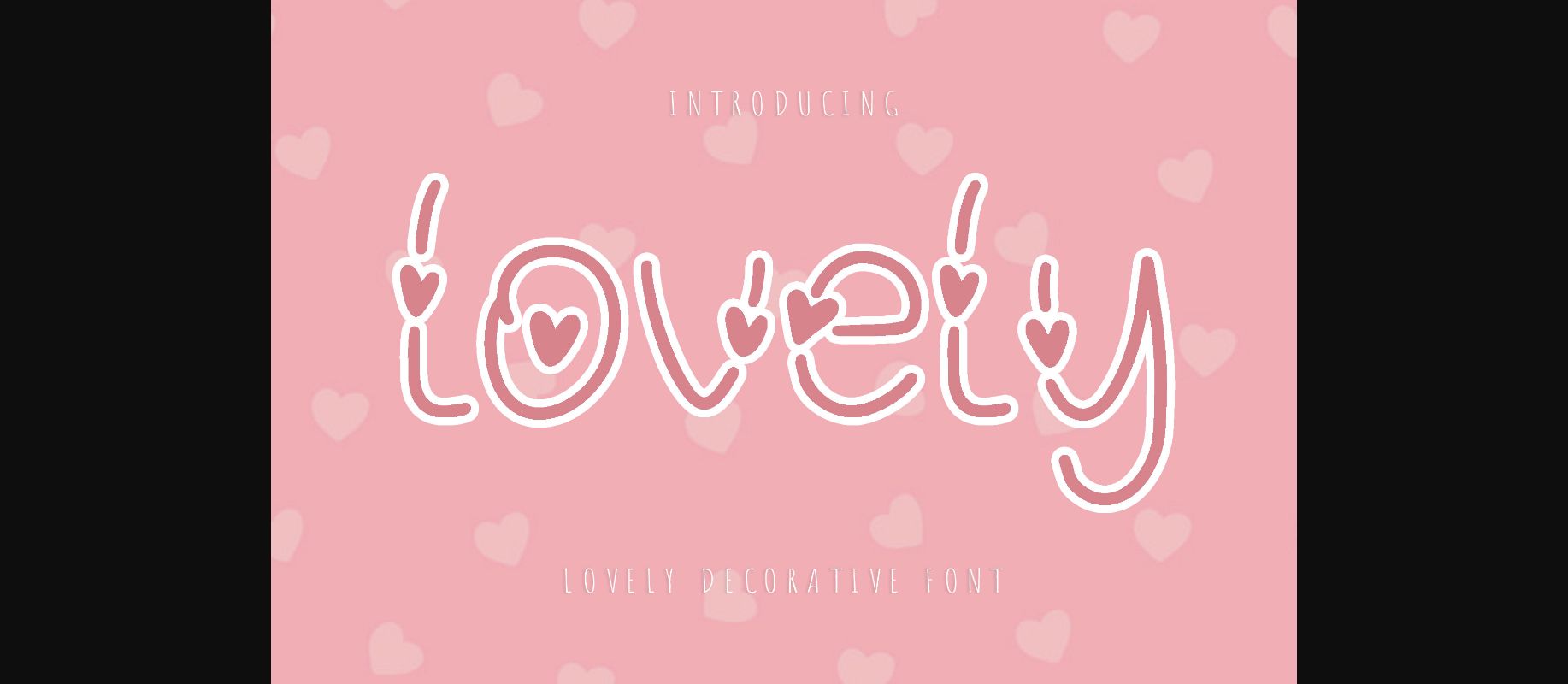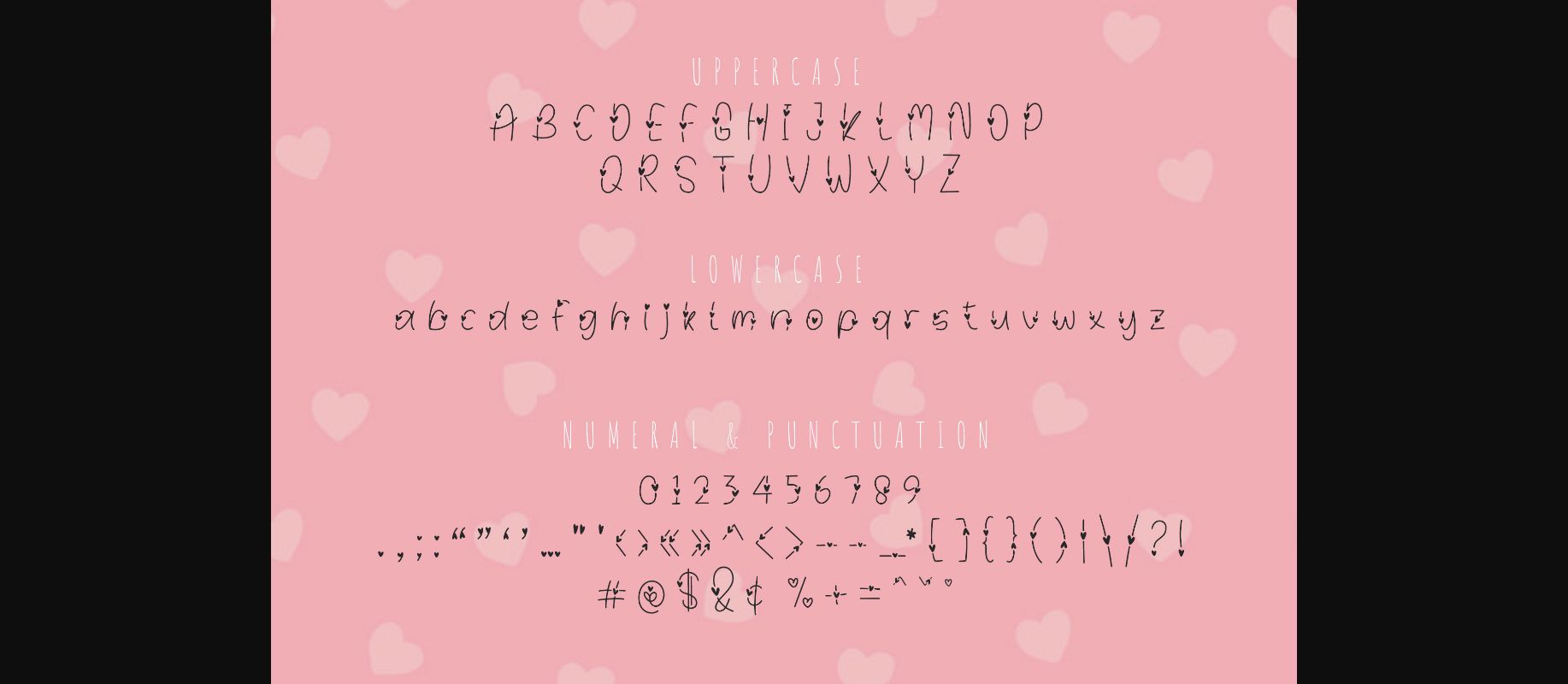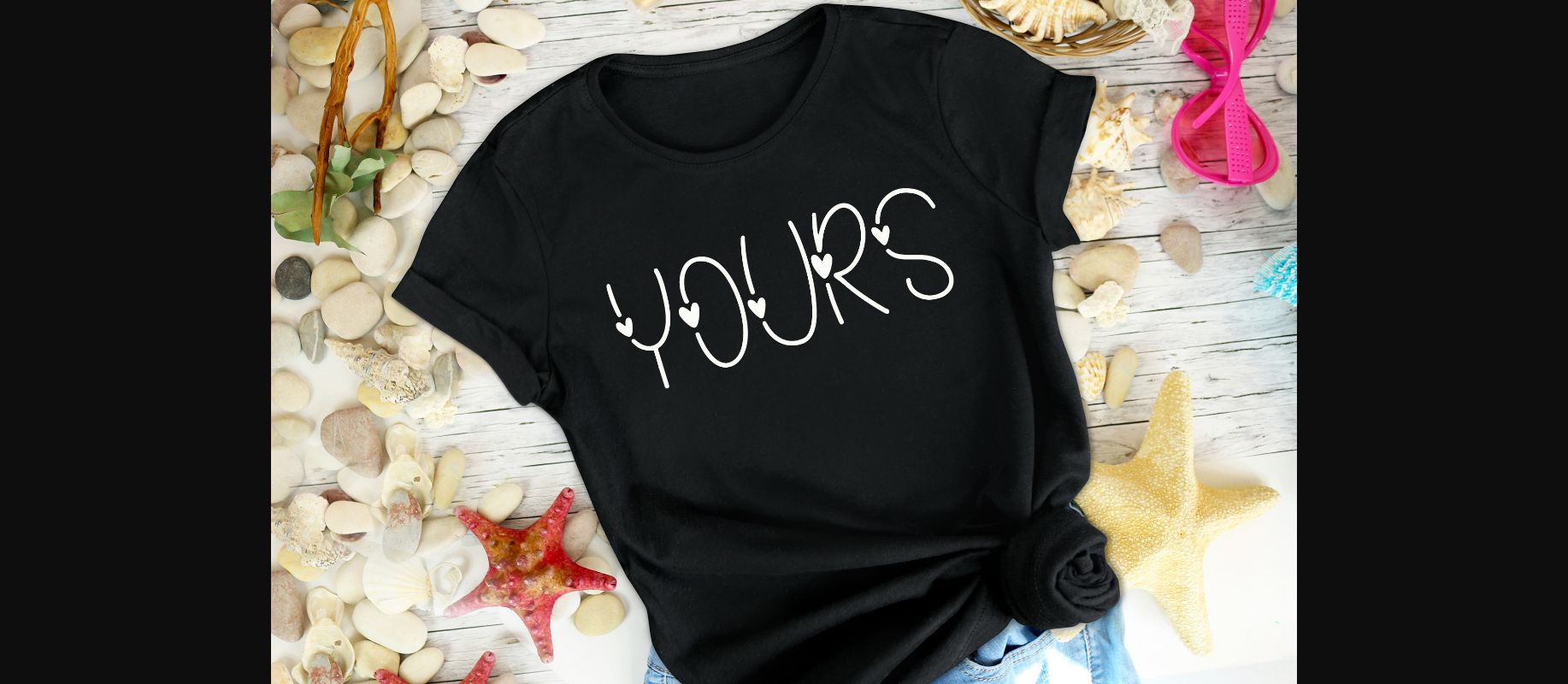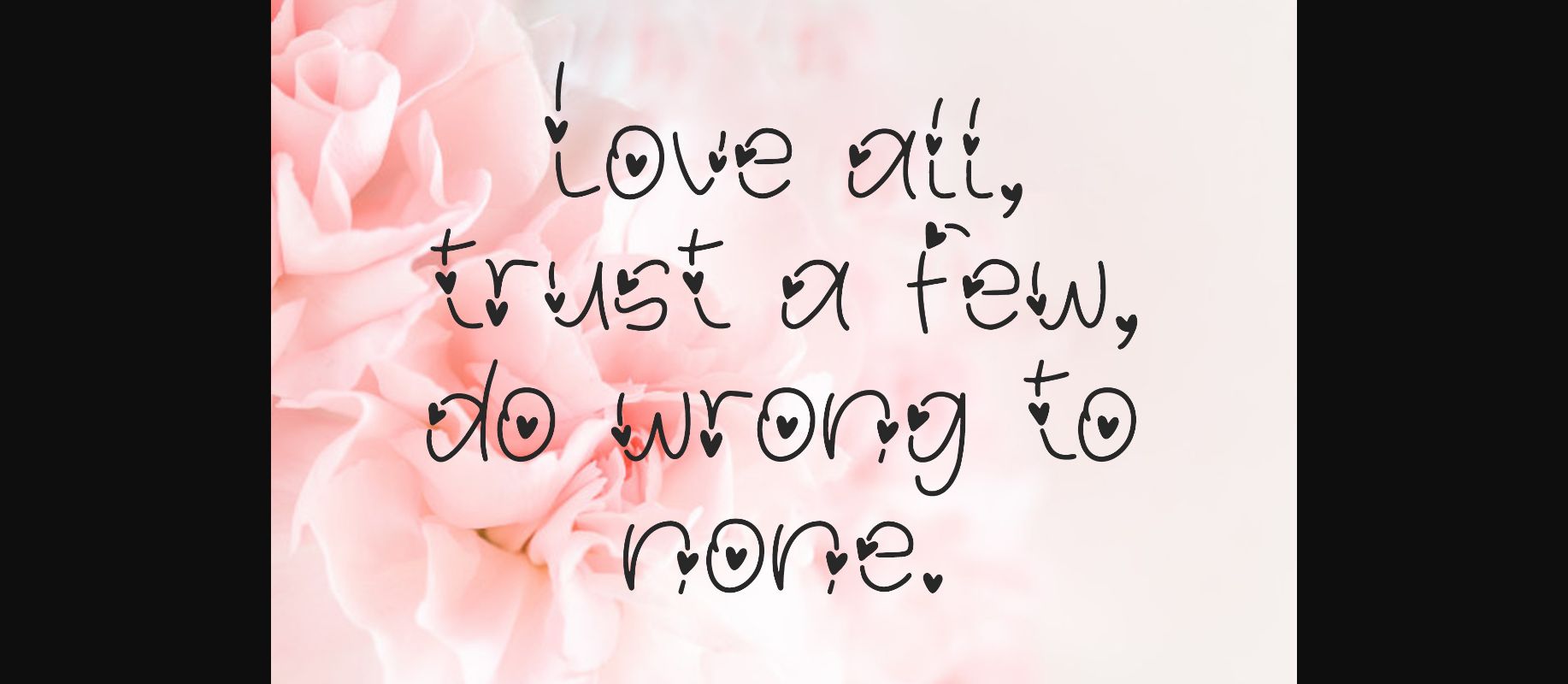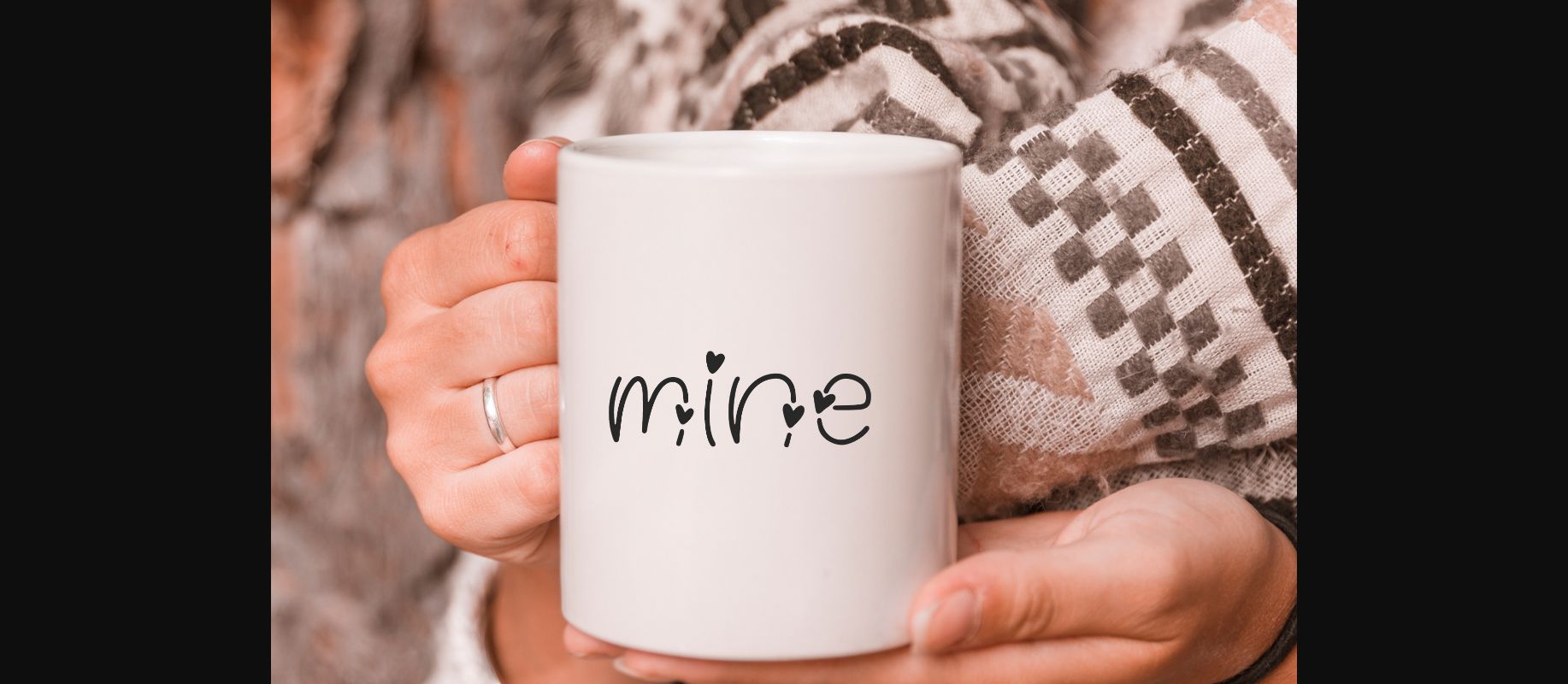
About Lovely Font
Lovely is an adorable and stylish decorative font, featuring sweet little hearts as ornaments. It will add an incredibly joyful touch to each of your beautiful projects.